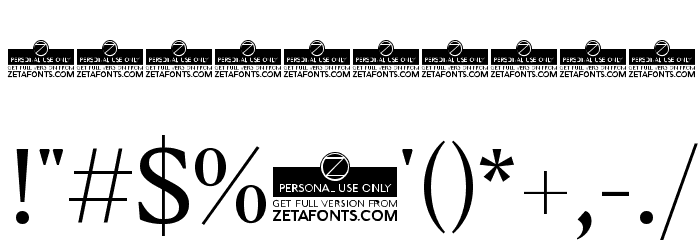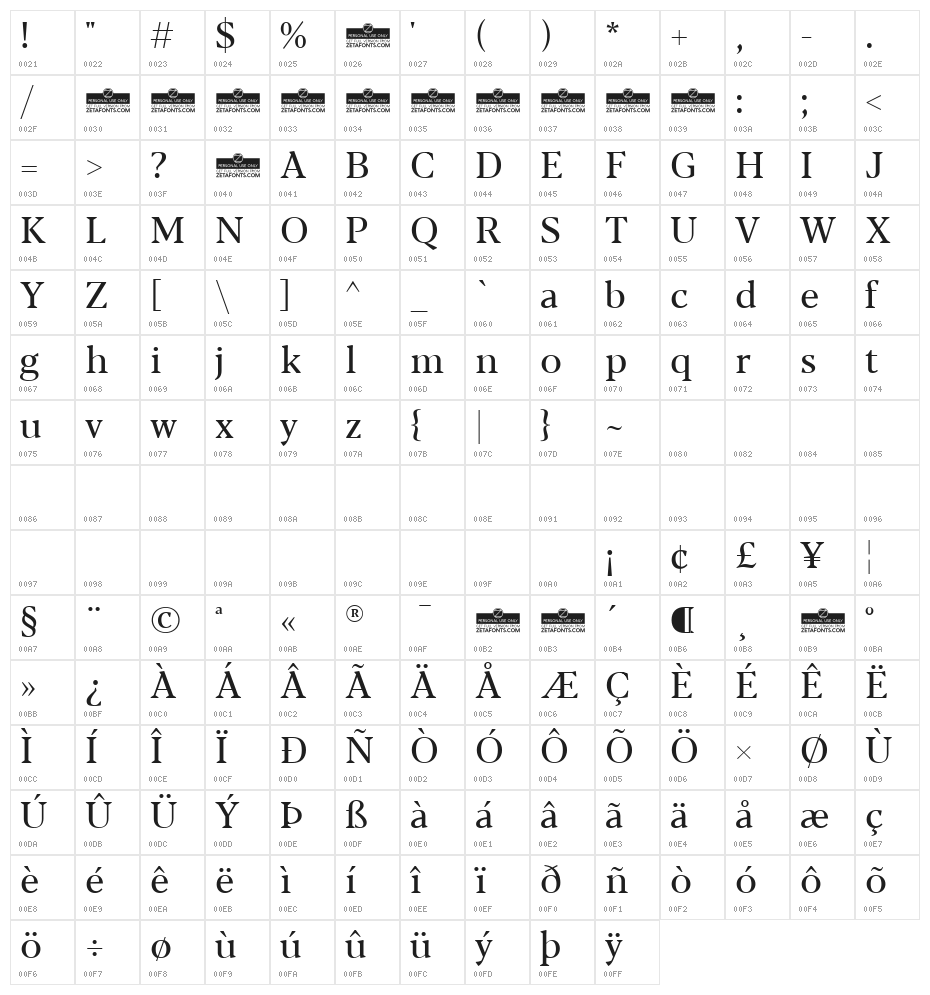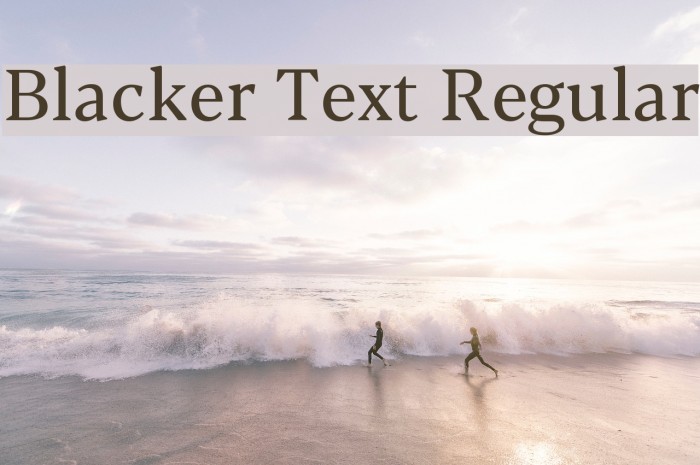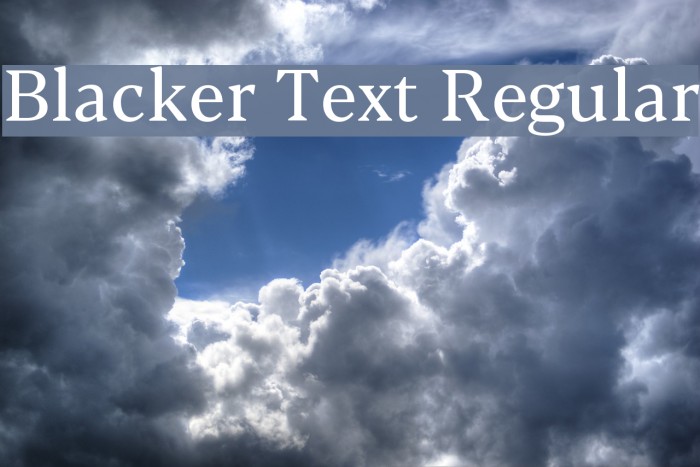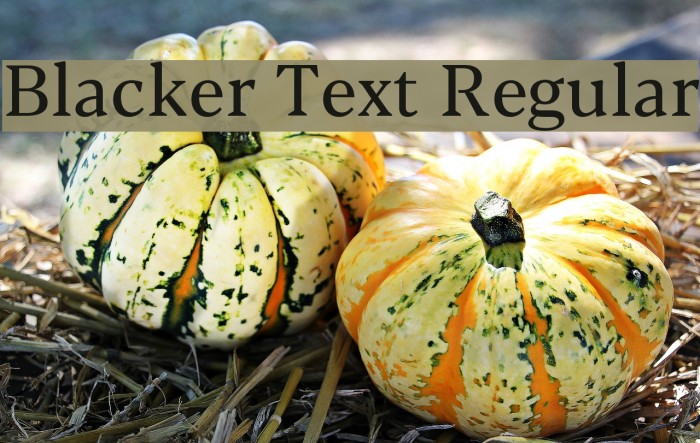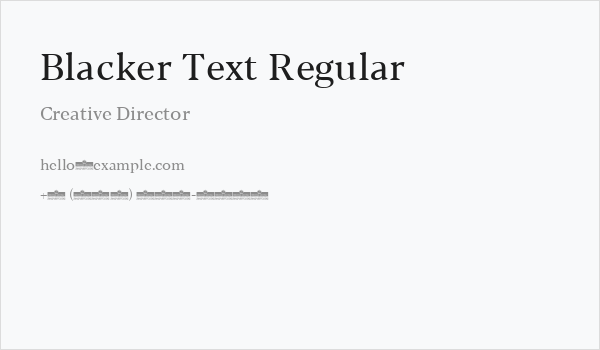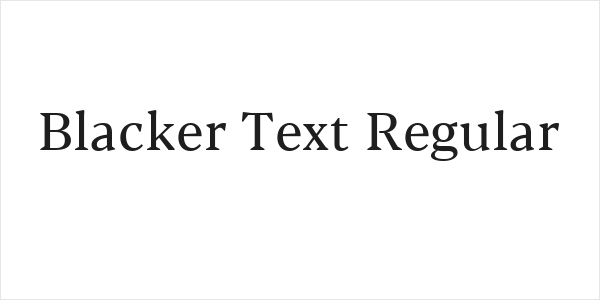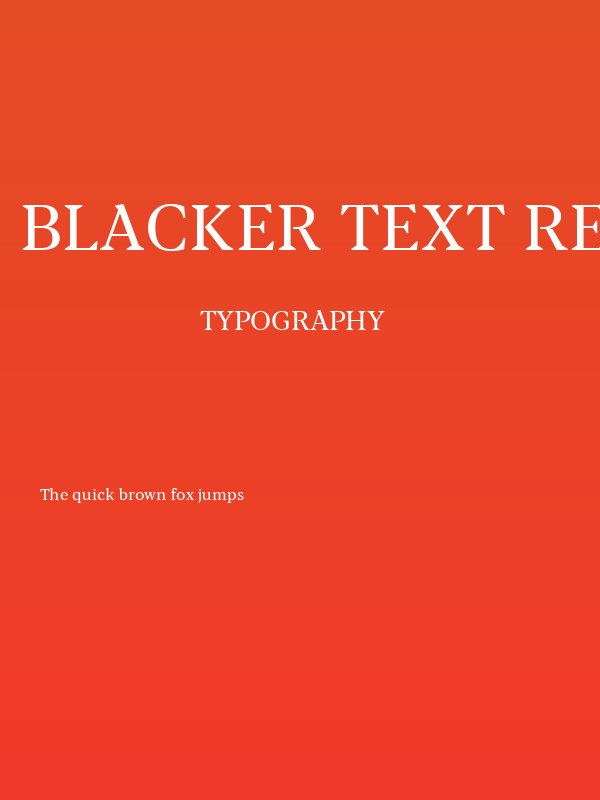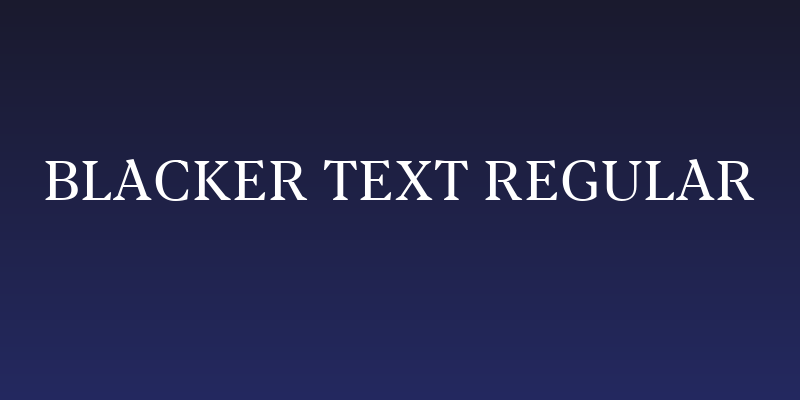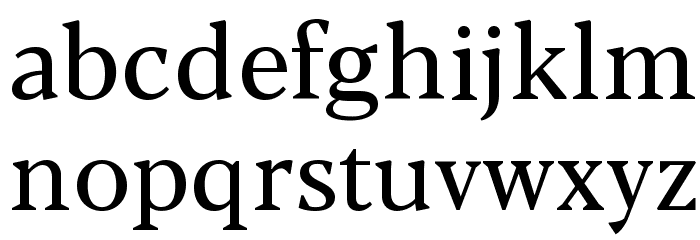
Blacker Text Regular Font
Blacker Text Regular Description
This font exhibits a strong and authoritative presence with its bold and slightly condensed letterforms. The serifs are pronounced, adding a classic touch to the overall modern design. The uppercase letters are tall and commanding, while the lowercase letters maintain a balanced and readable appearance. The numerals are consistent with the font's robust style, ensuring clarity and impact. Special characters are well-integrated, providing versatility for various design needs. The overall impression is one of sophistication and strength, making it suitable for projects that require a touch of elegance and authority.
| Use Case | Headlines, Editorial design, Branding |
| Proposed Projects | Ideal for editorial design, book covers, branding, and headlines where a strong, elegant presence is desired. |